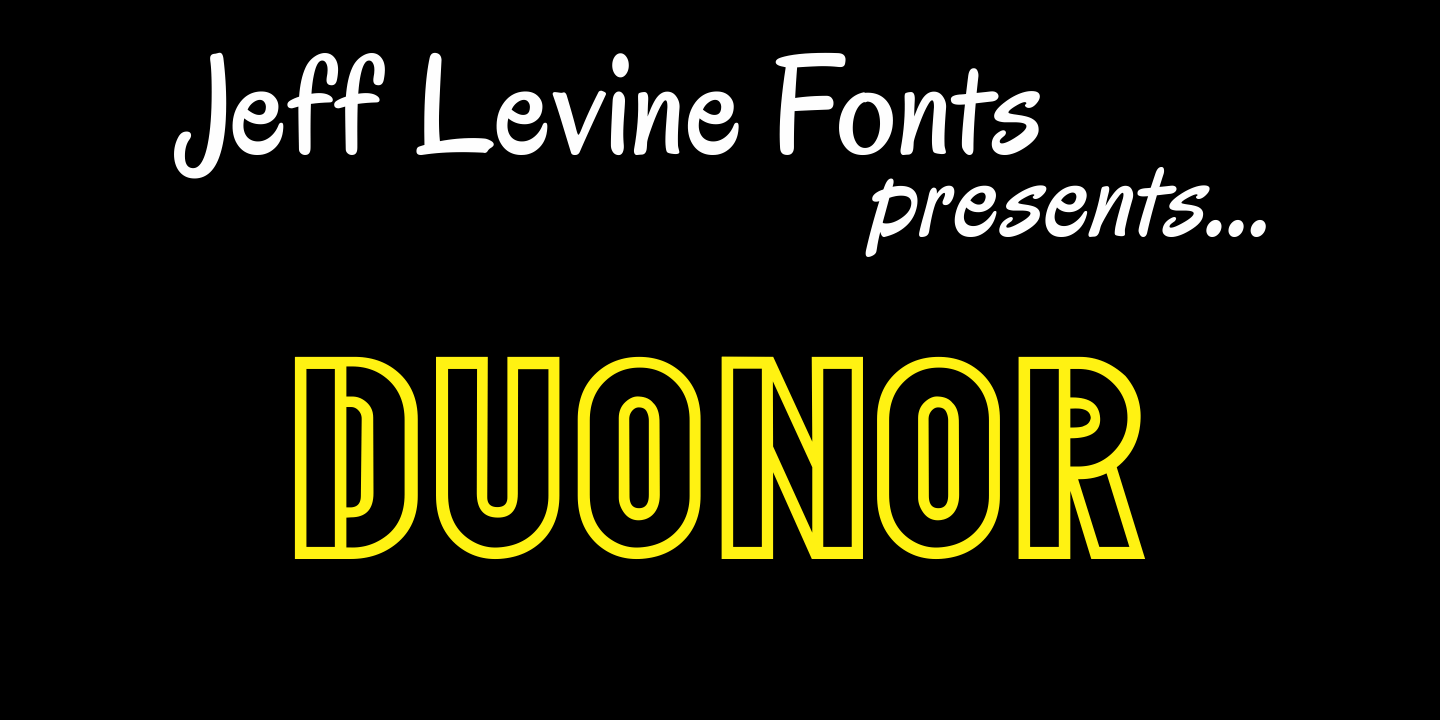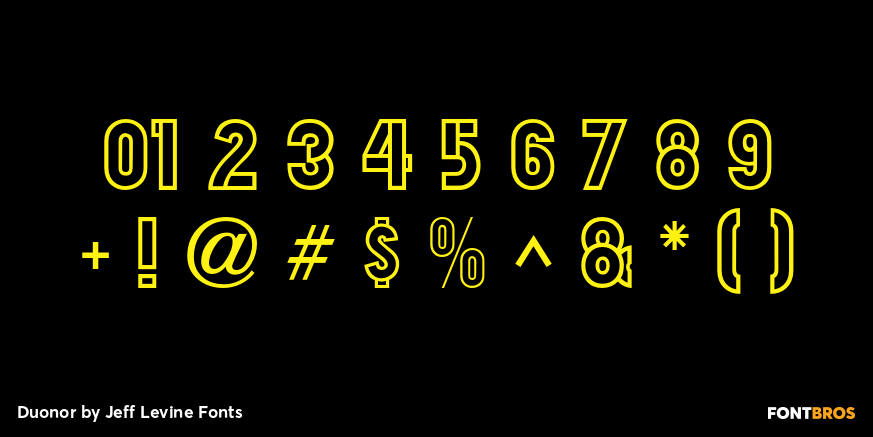
Duonor
Take the tri-line font Trilium JNL… remove the middle lines, close off the openings and you now have Duonor JNL, and interesting sans with a sectional look.